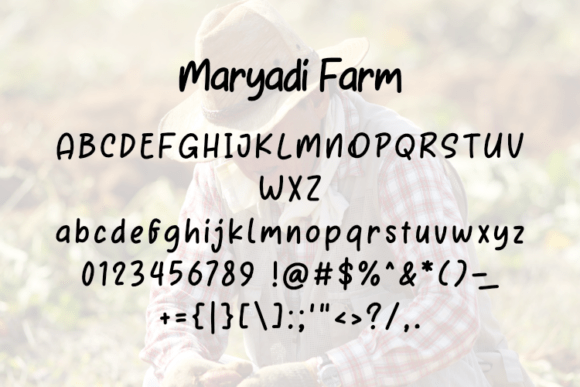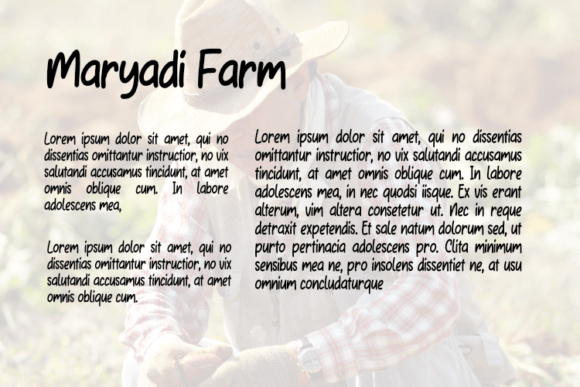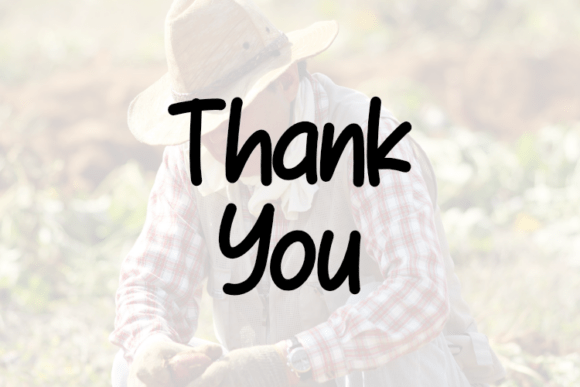
Introduction to Maryadi Farm Font
Have you ever been working on a creative project, pouring your heart and soul into it, only to feel like something is missing? The perfect font can be the key to elevating your design from good to great. For designers looking for a high-quality font that adds a unique touch to their creations, the Maryadi Farm Font is an excellent choice.
This versatile font is designed to bring a distinctive flair to your designs, whether you’re creating a captivating t-shirt, adding zest to an accessory, or designing stunning pieces. With its wide range of applications, the Maryadi Farm Font is a valuable resource for designers, offering the flexibility needed to take your creations to an entirely new level.
Key Features of Maryadi Farm Font
- Comes in a single font style with various weights and sizes, making it easy to customize for different design needs.
- Designed with a modern, rustic feel, ideal for farm-themed or country-inspired projects.
- Perfect design resource for graphic designers, illustrators, and artists working on creative projects.
Honest Review: Maryadi Farm Font
I recently had the chance to work with the Maryadi Farm Font in a creative project, and I must say it’s a high quality design resource that can add a unique touch to any design.
One of the things that works well about this font is its versatility. It’s perfect for projects that require a rustic, countryside feel, but it can also be used in more modern designs to add a touch of whimsy. The transparent background makes it easy to layer over images and textures, giving your design a seamless look. ✨
However, I did notice a few limitations. The font is not as comprehensive as some other fonts on the market, with limited character sets and no support for certain languages. This can be a problem for designers working on international projects. ⚠️
Overall, I’m impressed with the Maryadi Farm Font, and I think it’s a great addition to any designer’s toolkit. While it may not be perfect, it’s a high quality design resource that can help take your creative projects to the next level.
- Perfect for rustic or countryside-themed designs
- Great for adding a touch of whimsy to modern designs
- Limited character sets and language support
The Maryadi Farm Font is ideal for a variety of design projects, including:
- Brand identity and logos.
- Advertising and marketing materials.